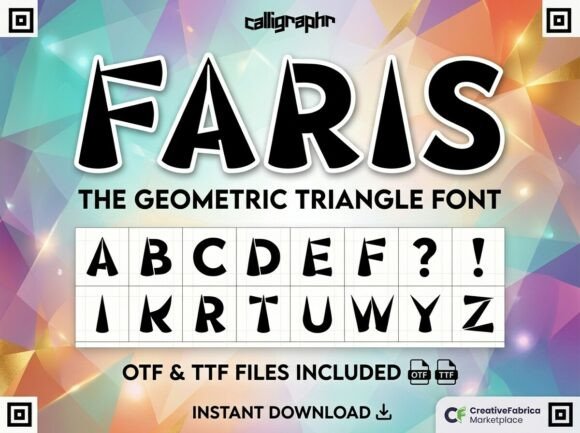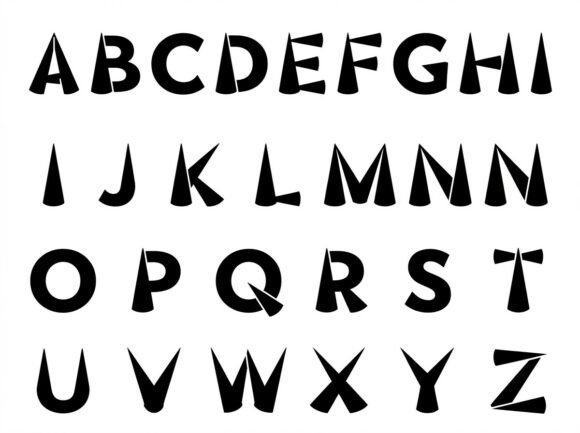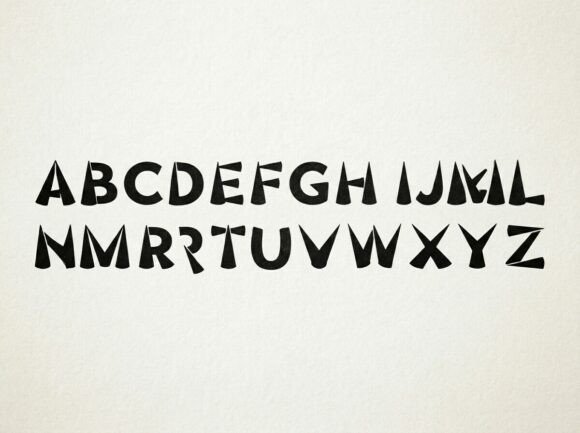
Introducing Faris Font: The Avant-Garde Choice for High-Impact Visual Storytelling
In the world of typography, fonts play a crucial role in conveying messages, evoking emotions, and creating lasting impressions. For designers and crafters seeking to make a bold statement, Faris Font is an exceptional choice. This modern geometric display font is engineered to command attention with its sharp, avant-garde energy, making it perfect for high-impact visual storytelling.
The Design Philosophy Behind Faris Font
Faris Font boasts massive, bold letterforms characterized by dramatic “origami” folds and a high-contrast diagonal split. This distinctive design creates a rhythmic, architectural silhouette that exudes a sense of brilliant structural power and unyielding modern character. The font’s heavy visual weight and aggressive geometric precision make it an ideal choice for applications where a strong, futuristic presence is desired.
Ideal Applications for Faris Font
Faris Font is exceptionally suited for a variety of design projects, including:
• Futuristic Cinema Titles: The font’s bold, geometric design makes it perfect for creating eye-catching titles for sci-fi movies, video games, and other futuristic projects.
• Tech-Focused Branding: Faris Font’s modern, avant-garde aesthetic makes it an excellent choice for tech companies, startups, and innovative brands looking to establish a strong visual identity.
• Experimental Editorial Headers: The font’s unique design and high-contrast features make it ideal for editorial projects, such as magazine headers, article titles, and blog posts.
• Bold Street-Art Posters: Faris Font’s bold, attention-grabbing design makes it perfect for creating striking posters, flyers, and other street-art projects.
Key Features of Faris Font
Faris Font offers a range of features that make it an exceptional choice for designers and crafters:
• Geometric Precision: The font’s aggressive geometric design creates a sense of modernity and sophistication.
• High-Contrast Diagonal Split: The font’s distinctive diagonal split creates a dynamic, rhythmic effect that adds visual interest to any design.
• Dramatic “Origami” Folds: The font’s unique folds add a touch of elegance and sophistication to its bold, geometric design.
• Heavy Visual Weight: Faris Font’s bold design ensures that your headlines stand out with a legendary and unforgettable presence.
Tips for Using Faris Font Effectively
To get the most out of Faris Font, consider the following tips:
• Use it Sparingly: Due to its bold design, Faris Font is best used sparingly to create a strong visual impact.
• Pair it with Simple Fonts: Pair Faris Font with simpler fonts to create a striking contrast and add visual interest to your design.
• Experiment with Colors: Faris Font’s bold design makes it perfect for experimenting with bright, bold colors and gradients.
Faris Font is an exceptional choice for designers and crafters seeking to create high-impact visual storytelling. Its unique blend of geometric precision, high-contrast features, and dramatic “origami” folds makes it perfect for a variety of applications, from futuristic cinema titles to bold street-art posters. With its heavy visual weight and aggressive geometric design, Faris Font is sure to command attention and leave a lasting impression.